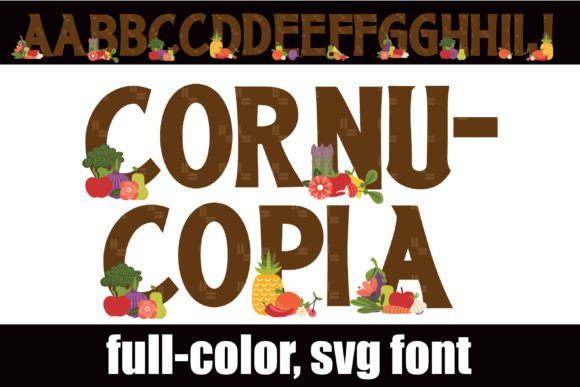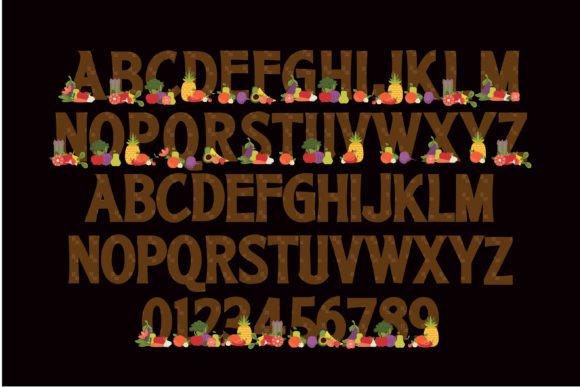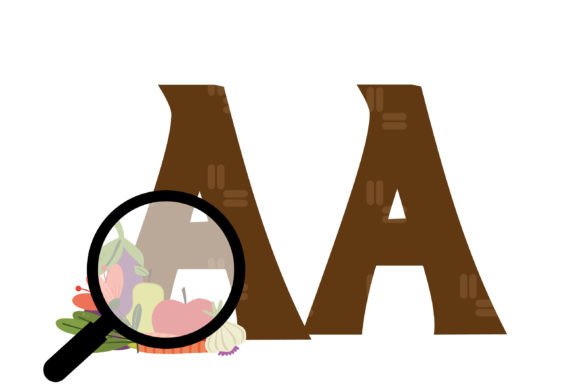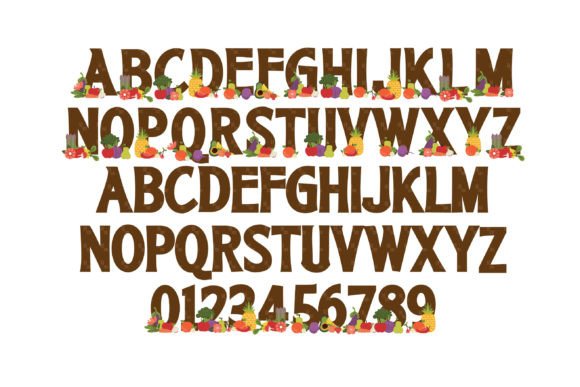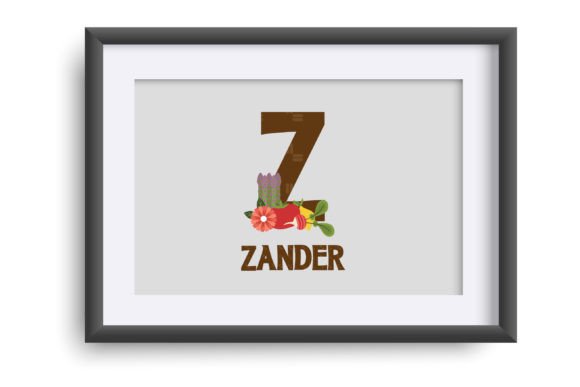
Cornucopia Font
About Cornucopia Font
Introducing Cornucopia, a delightful full-color font that brings the essence of Thanksgiving to life in your designs. This unique font features a bountiful feast of Thanksgiving delights in uppercase letters, while the lowercase offers a simple and complementary style.
With Cornucopia, you can infuse your autumn designs with the warmth and abundance of Thanksgiving. Each letter is adorned with elements of a traditional cornucopia, showcasing an array of delicious fruits, vegetables, and festive harvest decorations. The vibrant colors and intricate details of the font will instantly capture the spirit of the season, making it perfect for creating stunning and eye-catching projects.
Whether you’re designing greeting cards, invitations, menus, posters, or social media graphics, Cornucopia will add a touch of charm and authenticity. The font’s uppercase letters create a focal point with their intricate illustrations, while the lowercase letters offer a more simplified style for a balanced and versatile design.
Cornucopia is not just a font, but a celebration of the abundance and gratitude that Thanksgiving represents. Its playful and whimsical style invites you to explore creative possibilities and bring a sense of joy to your designs. Whether you’re creating digital artwork, home decor, scrapbooking, or any other autumn-themed project, Cornucopia will add a delightful touch that truly captures the essence of Thanksgiving.
So, embrace the spirit of gratitude and celebration with Cornucopia. Add this adorable full-color font to your collection and watch as it transforms your autumn designs into stunning works of art. Let the vibrant colors and festive illustrations of Cornucopia bring a sense of joy, warmth, and togetherness to your creative projects.
With Cornucopia, your designs will exude the charm and beauty of Thanksgiving, capturing the attention and admiration of your audience. Get ready to create stunning and memorable projects that reflect the spirit of gratitude and the joy of the harvest season with Cornucopia.